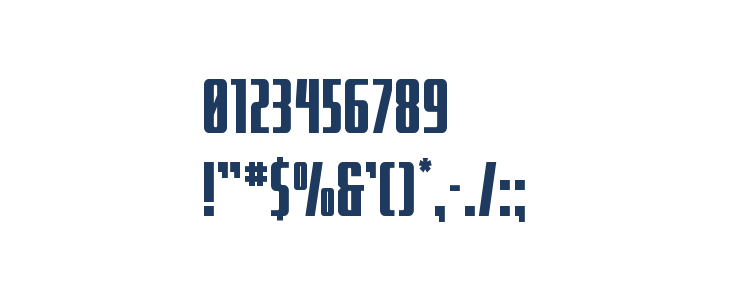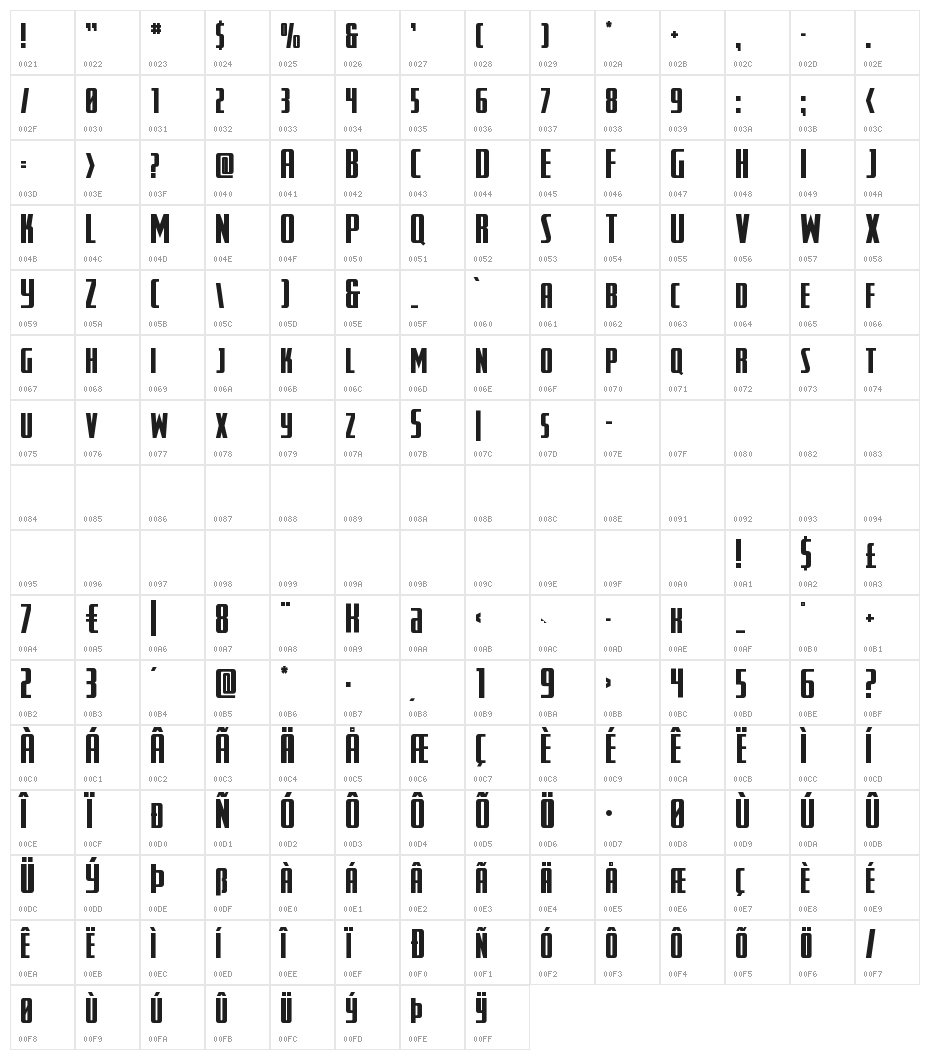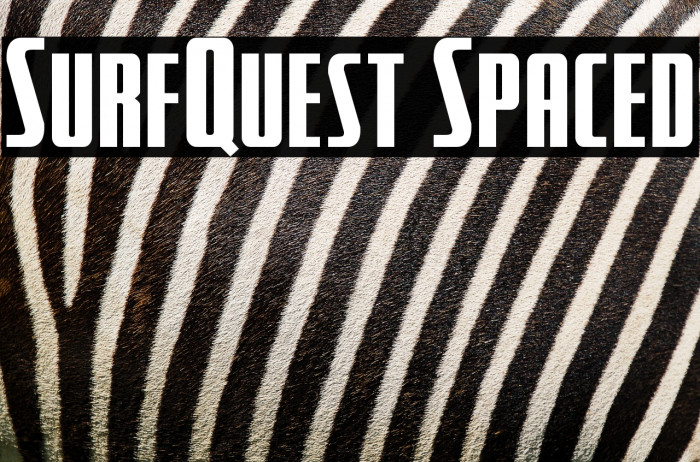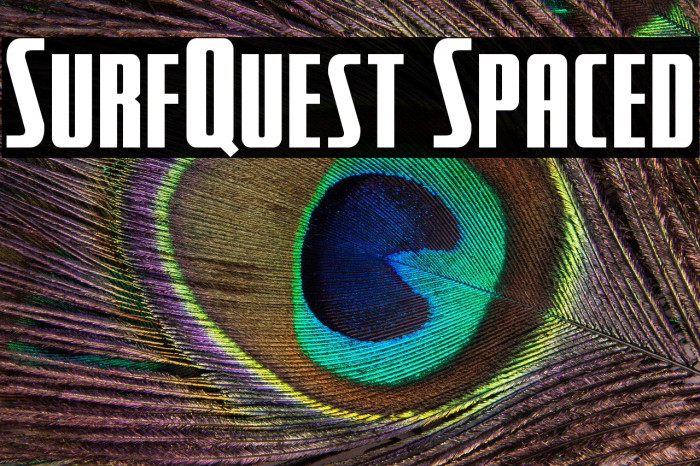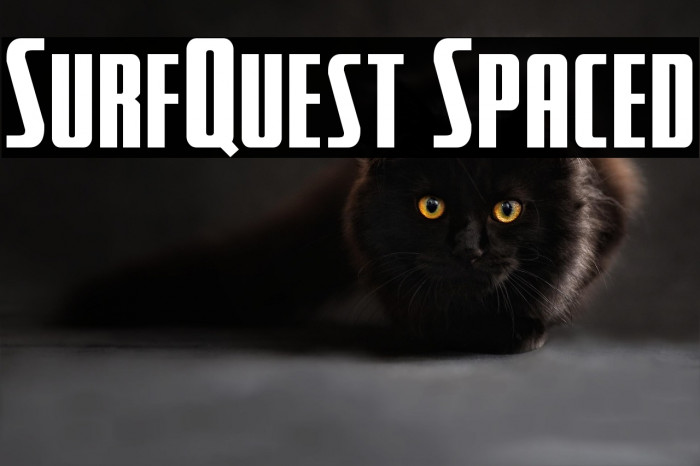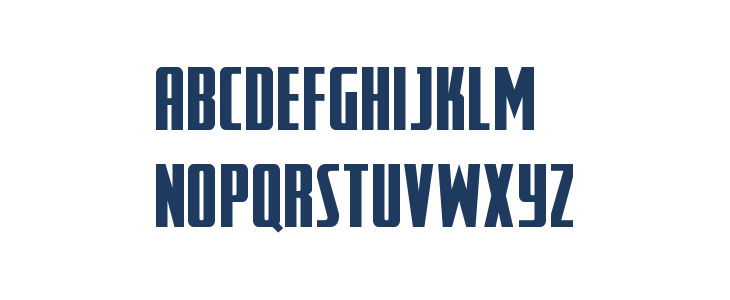
SurfQuest Spaced Font
SurfQuest Spaced Description
This font features a bold and impactful design, characterized by its tall, narrow letterforms and sharp edges. The uppercase letters are particularly striking, with a strong vertical emphasis that commands attention. The numbers and special characters maintain the same boldness, ensuring consistency across all elements. The font's geometric structure gives it a modern and assertive appearance, making it ideal for projects that require a strong visual presence. Its condensed width allows for efficient use of space, making it suitable for headlines and titles where space is limited but impact is necessary.